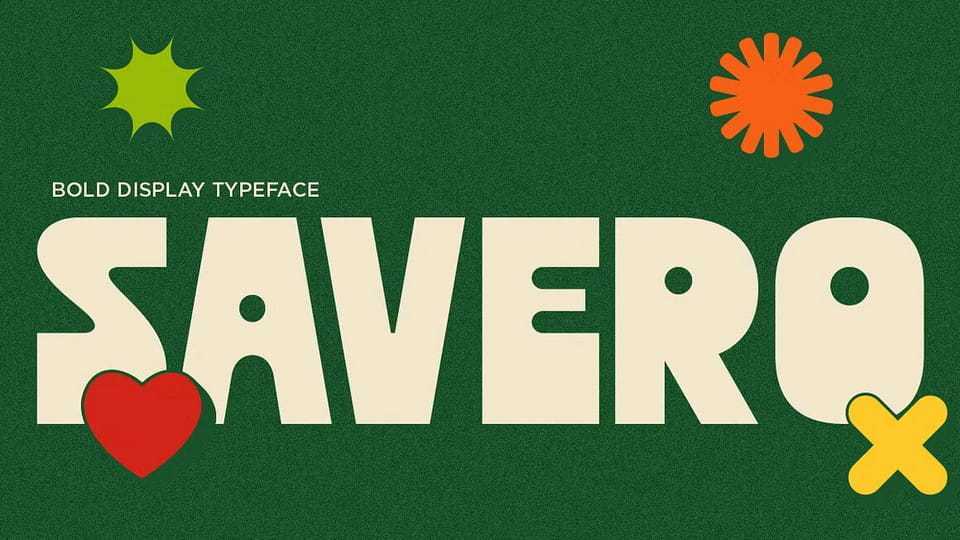
Download Savero font, a bold display typeface that brings a playful and energetic personality into modern typography. Built with strong, chunky letterforms and smooth rounded edges
Designer: Saystudio